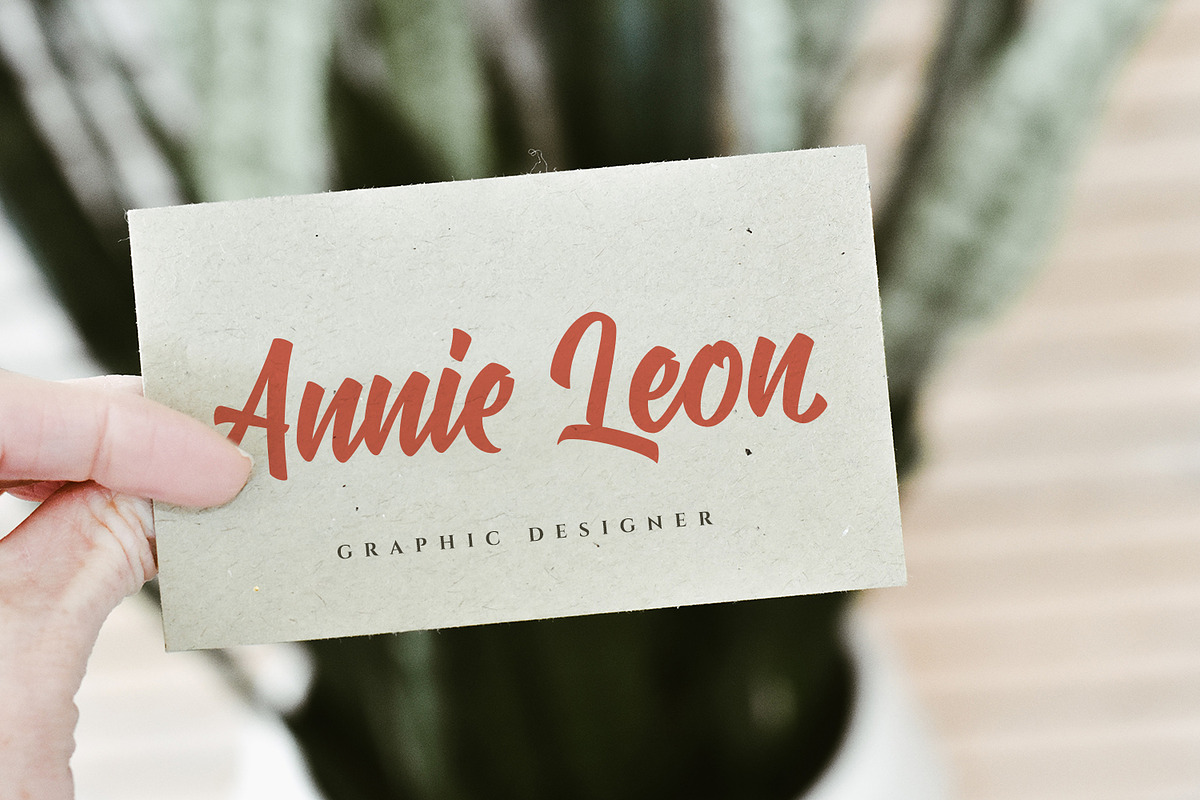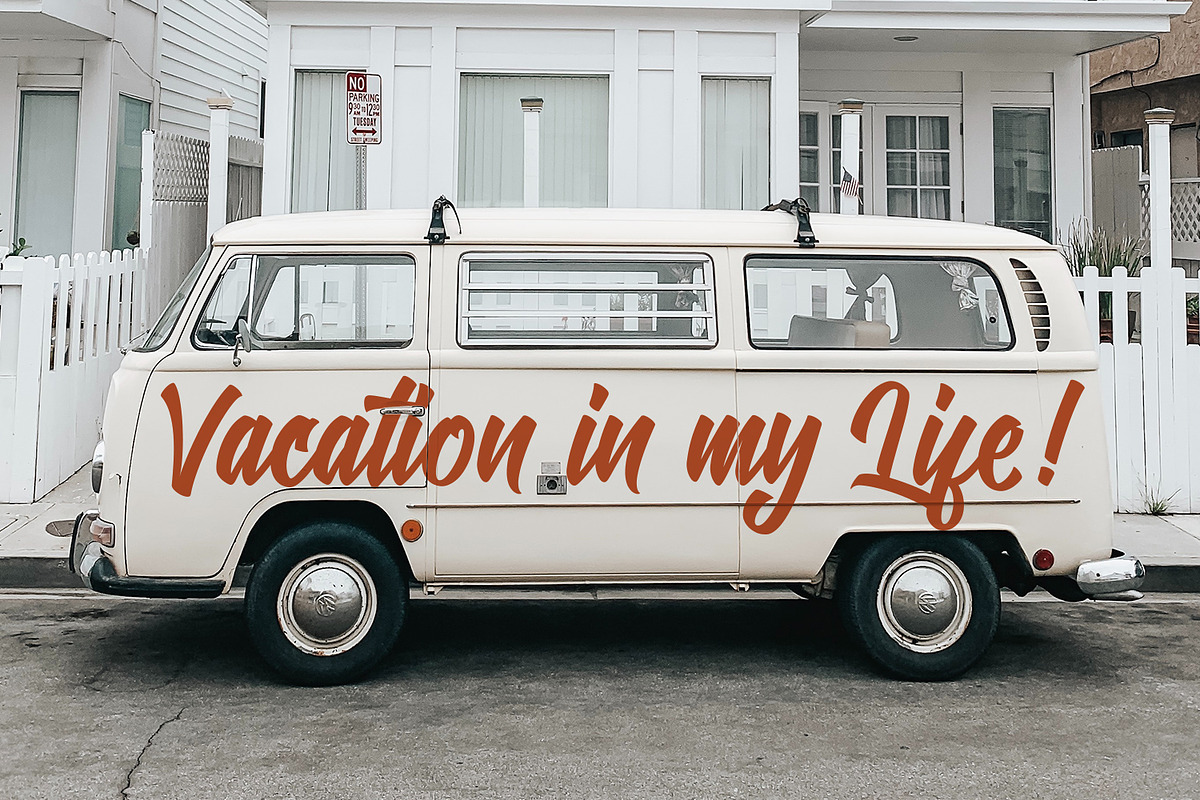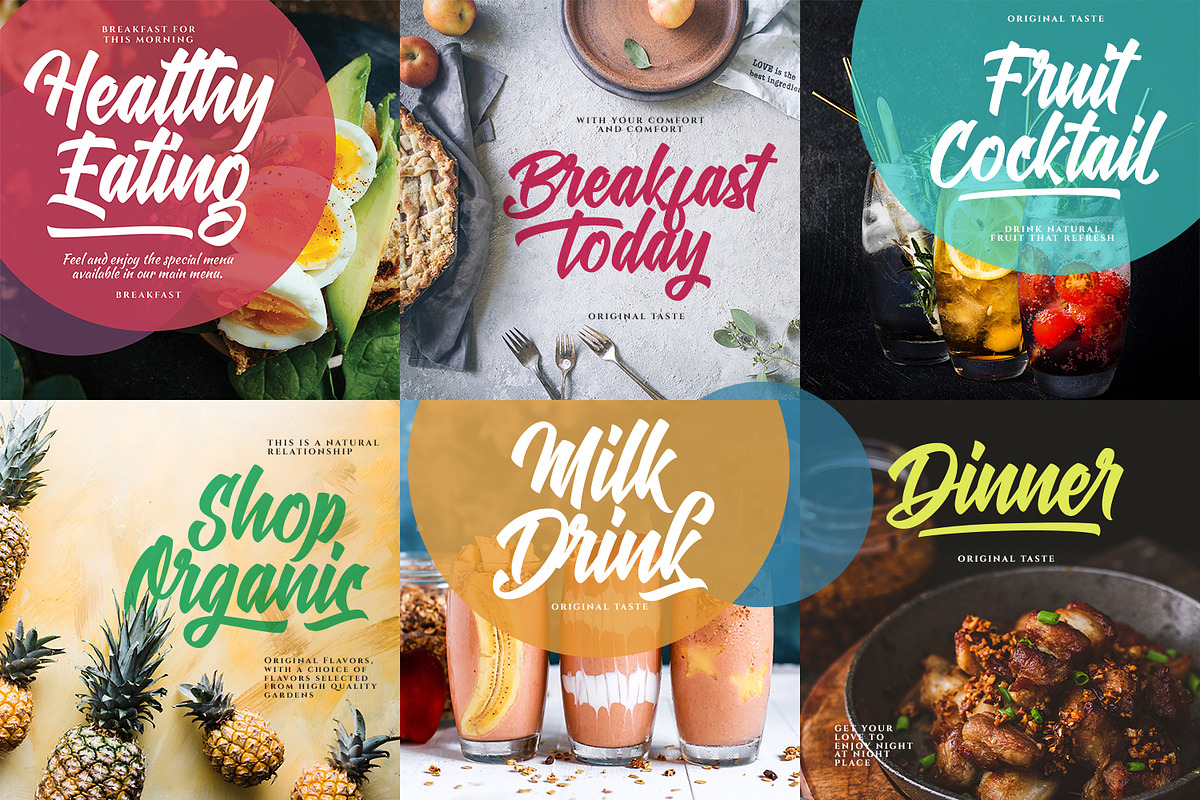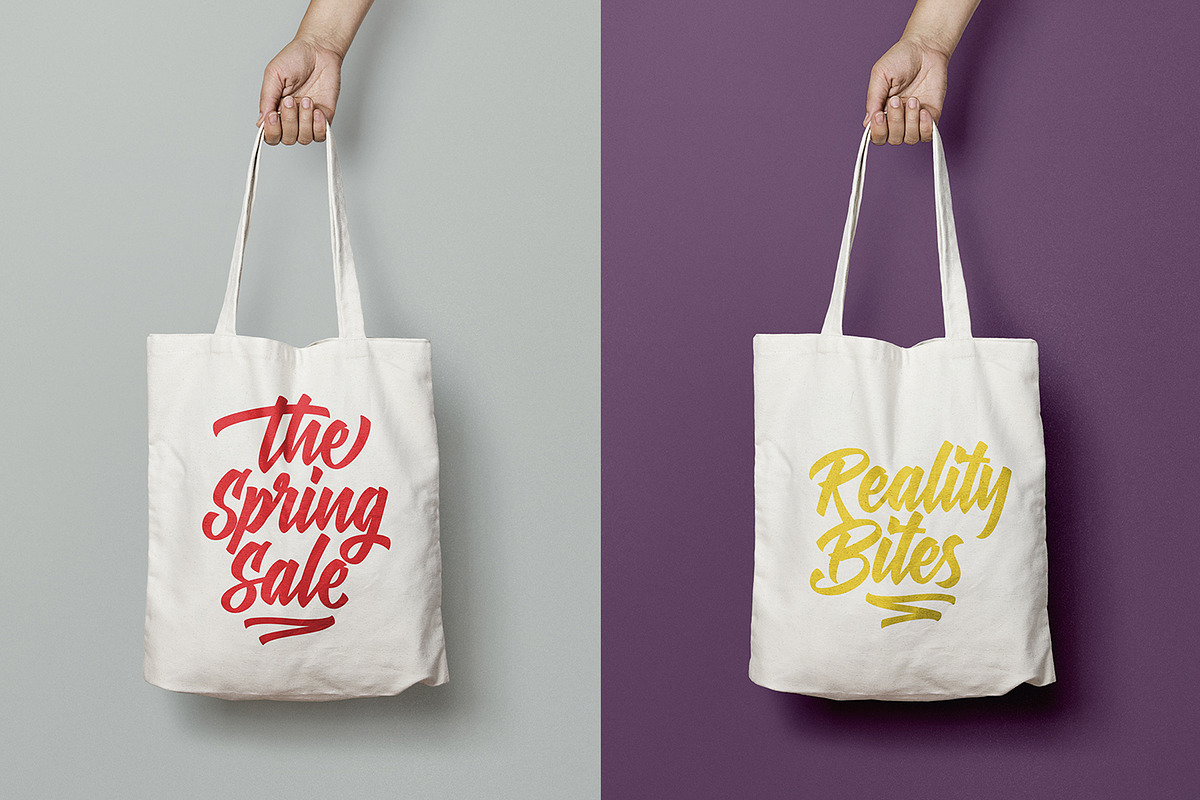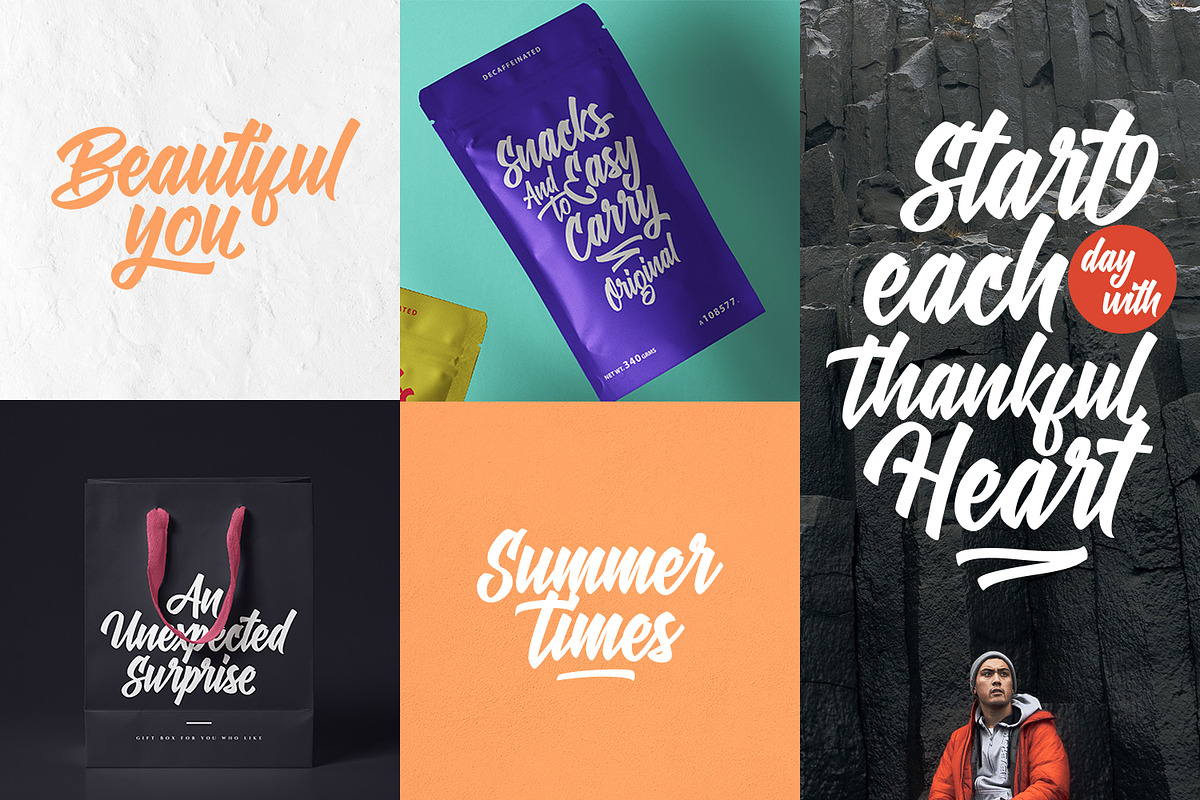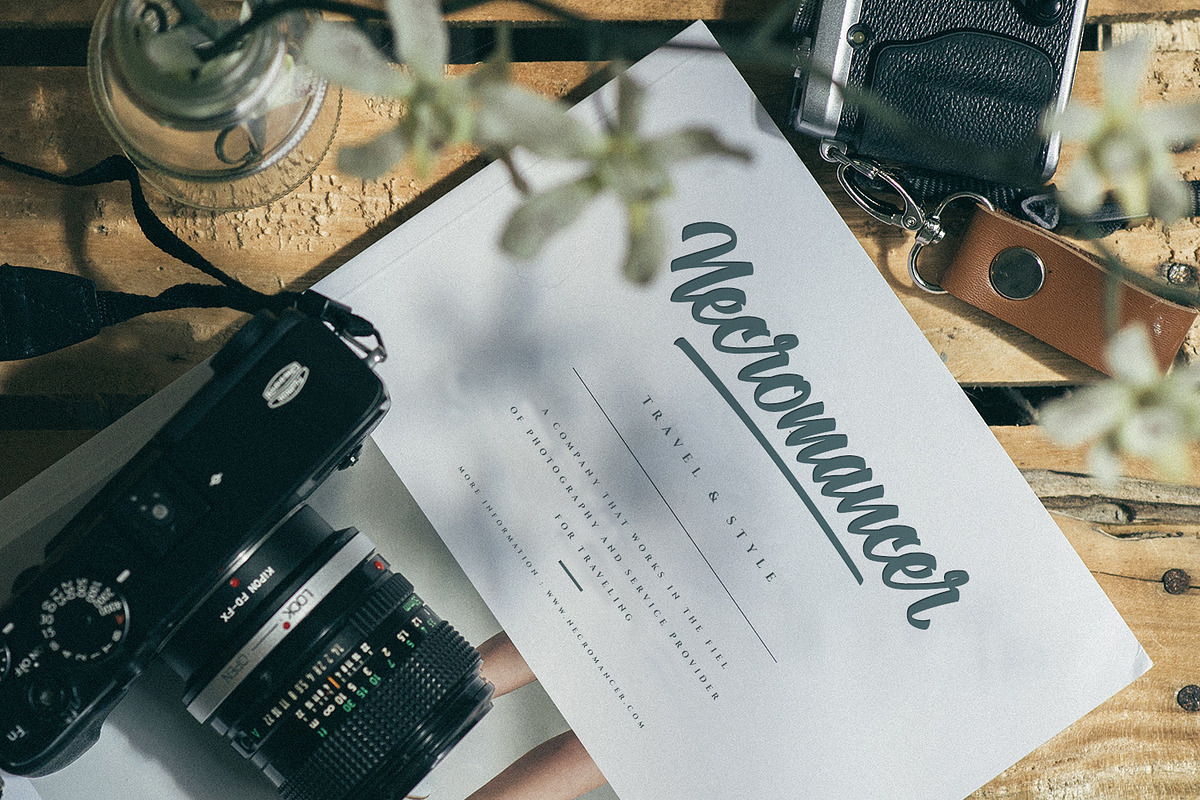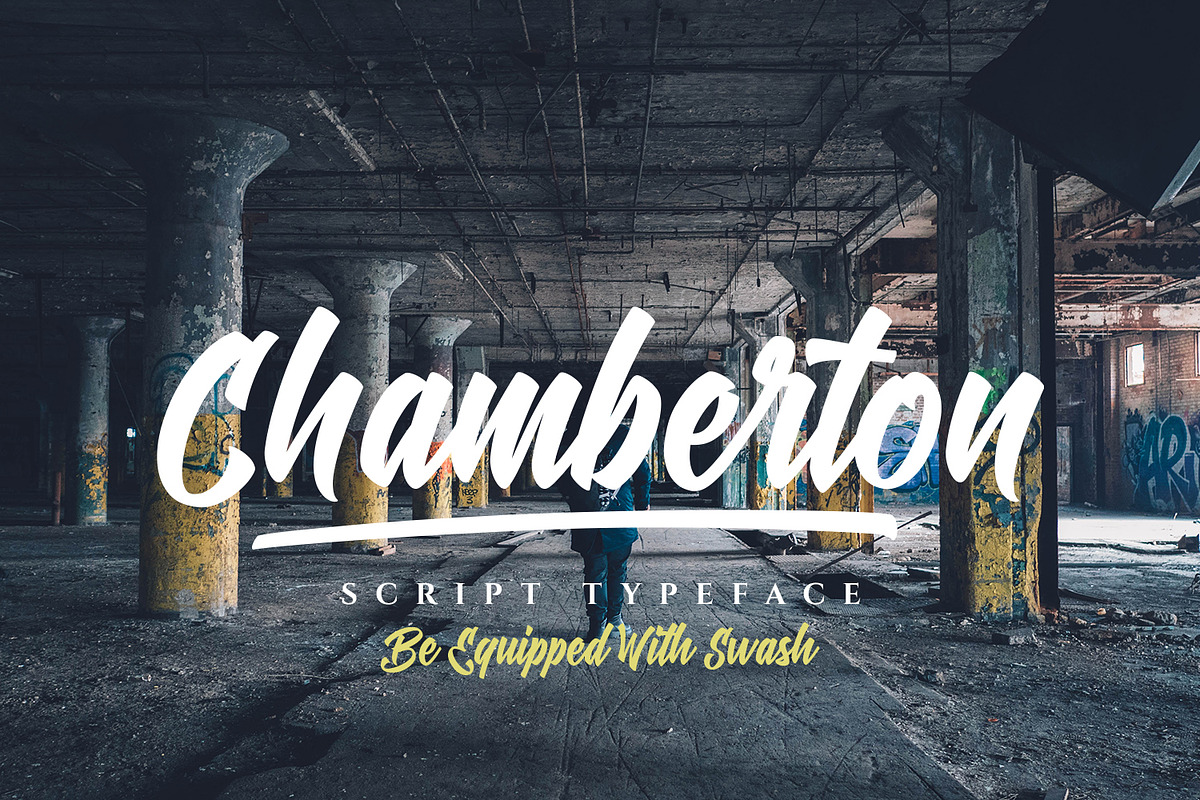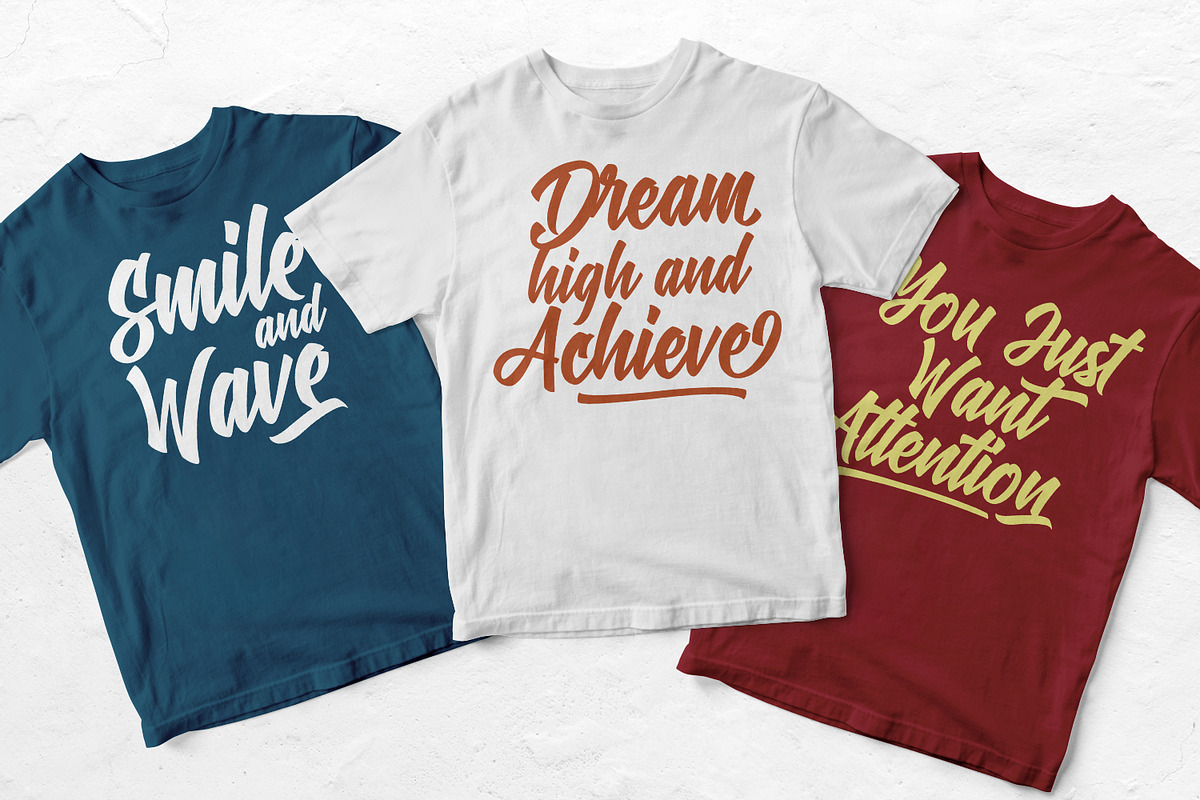
Chamberton - Script Font
Chamberton is a font script that I made for your needs and is easy to read so it is comfortable to wear, you can use it as a logo, badge, badge, packaging, title, poster, t-shirt / clothing, greeting cards, business cards, and wedding invitations and many again. Flowing characters are ideal for making interesting messages according to your taste.
mix and mix with many alternative characters to fit your project. It will be more interesting if you add swash.
Alternative characters in this font are divided into several OpenType features such as Stylistic Alternate, Ligature and Ligature Alternates.
- Flowing characters are ideal for making interesting messages according to your taste.
- mix and mix with many alternative characters to fit your project.
- Alternative characters in this font are divided into several OpenType features such as Stylistic Alternate, Ligature and Ligature Alternates
- Chamberton Swash Regular